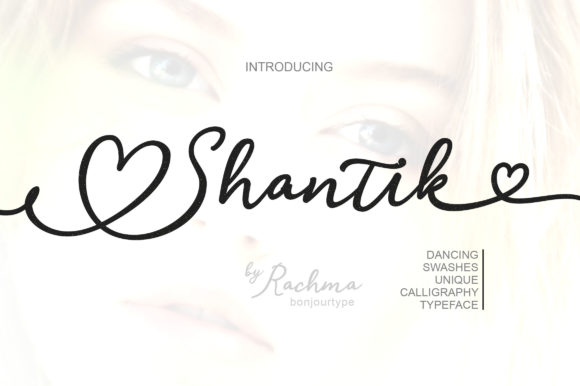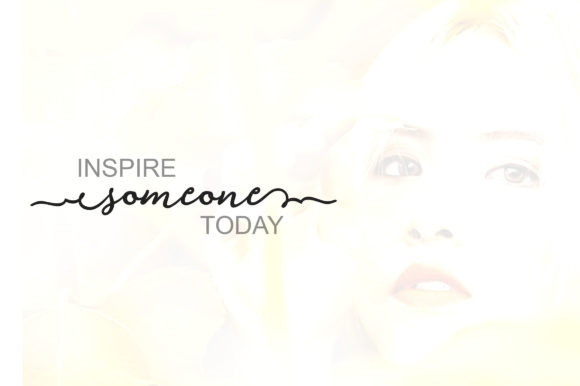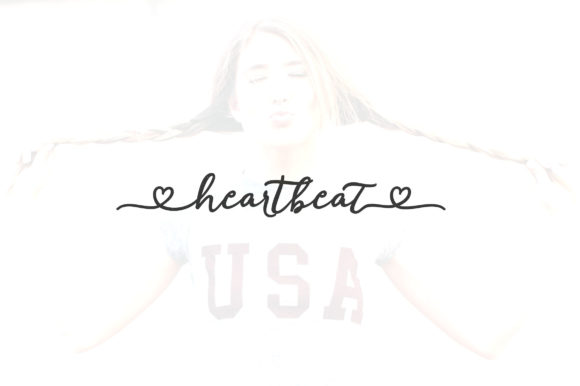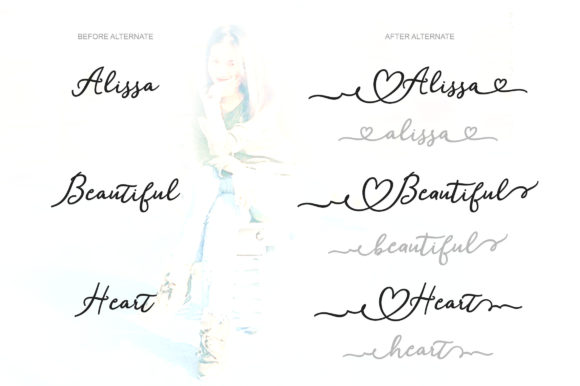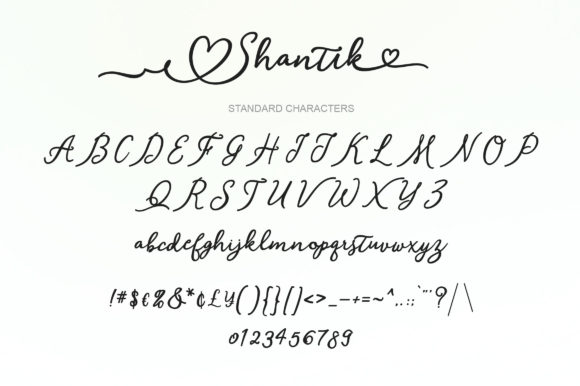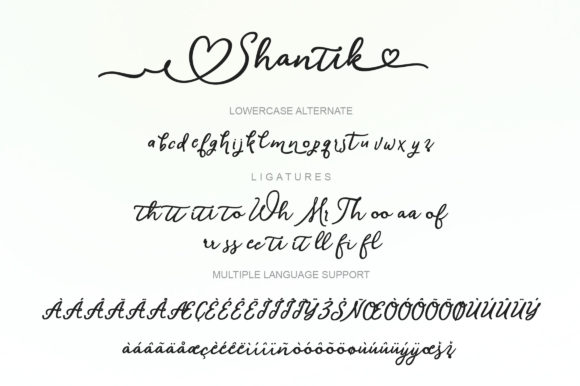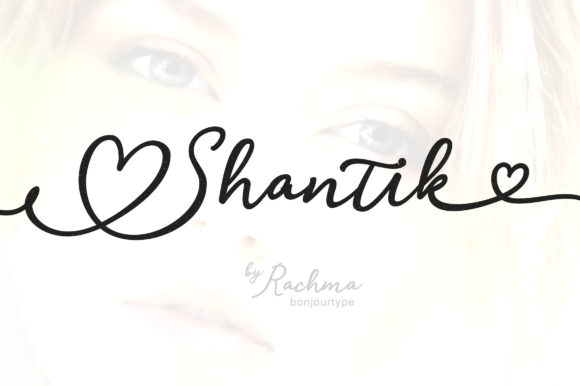
Shantik Font
About Shantik Font
The Shantik is is a beautiful and unique typeface. It includes amazing swashes which will add an elegant touch to your designs.
It’s suitable for greeting cards, quotes, invitations, printable, such as posts, signatures, logos, wedding invitations, t-shirts, letterhead, signage, labels, news, posters etc.